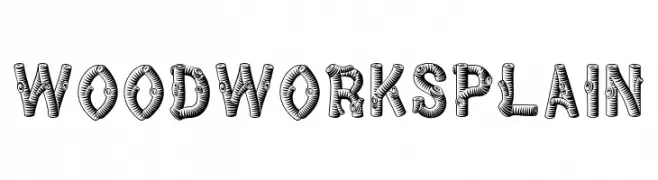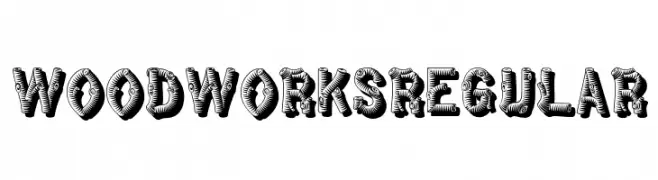
( Fonts by RaisProject )
A bold, playful font with a woodcut, handcrafted appearance.
( Fonts by ThorType )
A bold, decorative font with a 3D carved wood appearance.
( Fonts by ThorType )
A decorative, hand-drawn font with a wood grain texture and playful style.
( Fonts by PutraCetol Studio )
A decorative, wood-grain inspired font with a rustic and playful style.